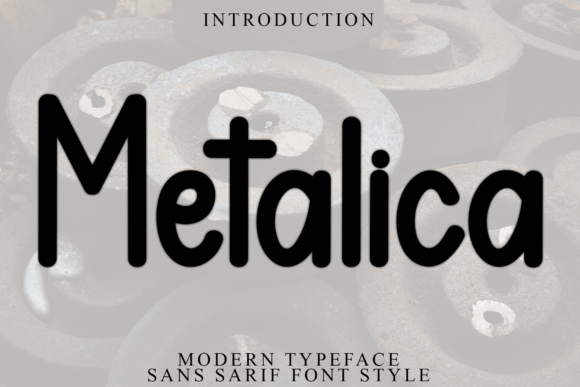
Metalica Font Download Display Fonts: Typography isn’t just about letters—it’s about creating a feeling. And when you choose the right font, you give your designs a personality that speaks before words are even read. The Metalica Font is one such typeface that does this effortlessly. With its soft yet distinctive strokes, artistic character set, and timeless appeal, it’s an excellent choice for creative projects that need elegance, uniqueness, and versatility.
Whether you’re working on handcrafted projects, professional branding, or artistic displays, Metalica can add that perfect touch of individuality to your designs.
✨ Overview of Metalica Font
The Metalica Font blends modern elegance with a soft, handcrafted feel. It’s created with smooth strokes and unique forms that make it instantly recognizable. Its well-balanced shapes convey both refinement and approachability, making it suitable for a wide range of uses—from luxury product labels to cozy craft shop logos.
With an extended character set and decorative alternates, Metalica offers plenty of creative freedom for designers. Its adaptability ensures it looks just as stunning in digital designs as it does in print.
🌟 Key Features of Metalica Font
Soft, Elegant Stroke Design – Gentle curves create a welcoming look.
Unique & Recognizable Letterforms – Distinctive style sets your designs apart.
Versatility Across Projects – Works well in professional, artistic, and casual settings.
Multiple Characters & Alternates – Ideal for customization and creative typography.
Smooth, Handcrafted Feel – Perfect for branding with a personal touch.
🎯 Best Uses for Metalica Font
The beauty of Metalica is in its flexibility. Here’s where it truly shines:
Branding & Logo Design – For boutiques, artisan shops, beauty salons, and lifestyle brands.
Product Packaging – Works beautifully for candles, cosmetics, food items, and handmade goods.
Wedding & Event Invitations – Brings a romantic and sophisticated touch.
Social Media Graphics – Adds an elegant flair to Instagram posts, Pinterest pins, and stories.
Signage & Storefronts – Ideal for businesses that want to stand out with stylish typography.
Crafts & DIY Projects – Perfect for Cricut or Silhouette cutting machines.
🎨 Design Tips for Using Metalica Font
Use in Headings or Logos – Its elegance is most impactful in prominent placements.
Pair with Simple Fonts – Combine it with a clean sans serif like Helvetica or Poppins to balance detail.
Experiment with Kerning – Adjust letter spacing for a more dramatic or minimalist effect.
Try Gold Foil or Gradient Overlays – This can elevate its luxury feel in branding.
Use Decorative Alternates – Take advantage of stylistic sets to make designs more expressive.
✅ Why Designers Love Metalica Font
Elegance with Personality – Soft yet bold, it’s both approachable and distinctive.
Highly Versatile – From wedding invites to brand identities, it fits many styles.
Creative Flexibility – Multiple character sets make it ideal for custom typography.
Balanced in Print & Digital – Works perfectly on-screen and on paper.
Memorable Impact – Leaves a lasting impression on audiences.
Yes. It has a range of stylistic alternates, swashes, and ligatures for custom typography.
Q4. Which fonts pair best with Metalica?
Clean sans serif fonts like Montserrat, Open Sans, or Lato make excellent companions, allowing Metalica’s details to shine.
Q5. Is Metalica suitable for body text?
It’s best used for headlines, titles, and decorative elements. For long paragraphs, pair it with a simpler, more readable font.
Q6. Can I use Metalica on cutting machines like Cricut?
Yes. Its clear letterforms work great for cutting projects, especially for decorative vinyl designs.
Q7. What kind of designs look best with Metalica?
Wedding stationery, boutique branding, luxury packaging, and elegant social media graphics are all excellent matches.
📌 Final Thoughts
The Metalica Font is the perfect marriage of elegance and individuality. Its soft strokes, unique shapes, and extensive character options give designers the freedom to create truly remarkable work. Whether you’re crafting a chic wedding invite, designing artisan product packaging, or building a memorable brand identity, Metalica will elevate your typography game.